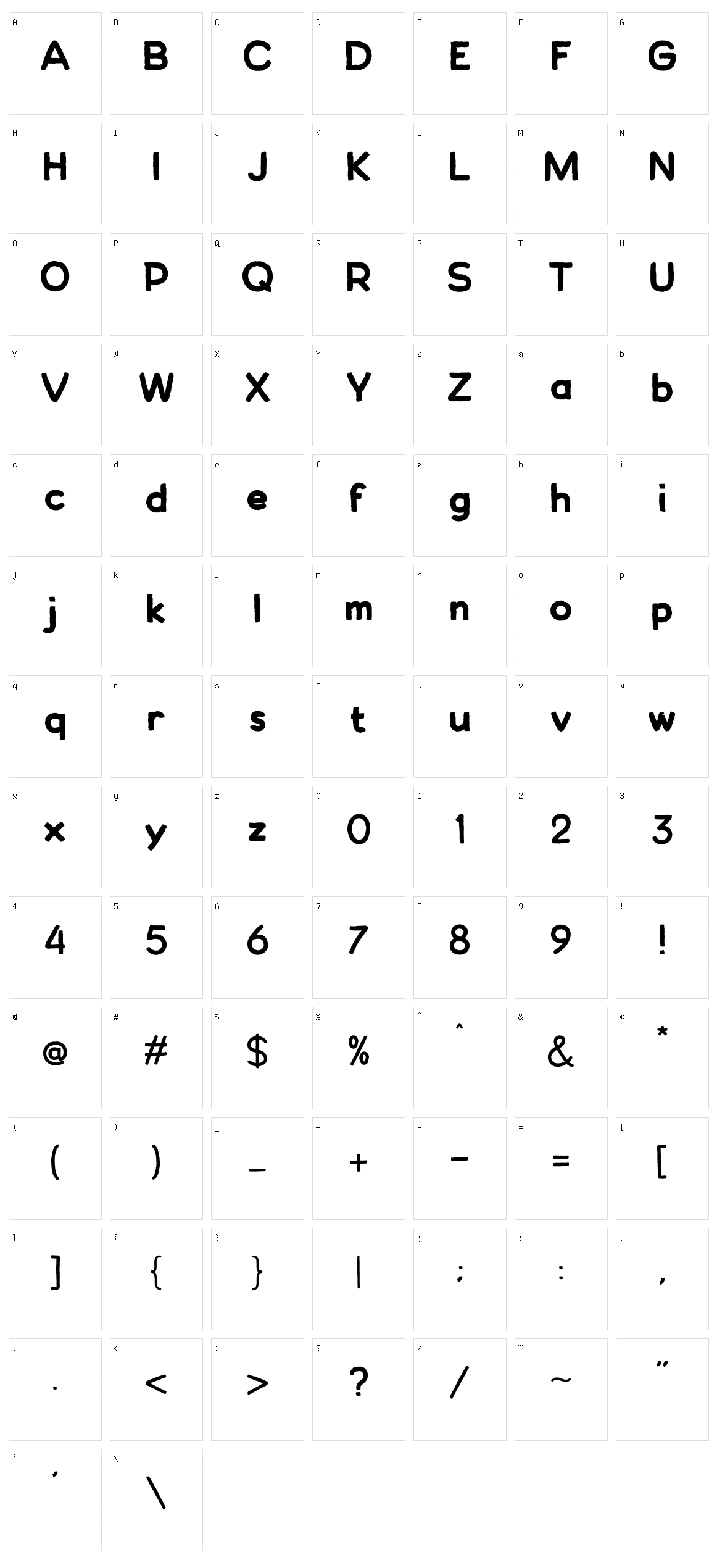
The free font Chalkcoal is carefully designed by letterey, showcasing a thoughtful balance of creativity and usability and falls under the Eroded font style. When you download the ZIP file, it contains only 143.1 KB of font files, making it lightweight and quick to download. Please review the license details below to understand permitted usage and distribution rights. If license information is not available, we recommend using this font for personal projects only or contacting the author directly for commercial usage permissions.